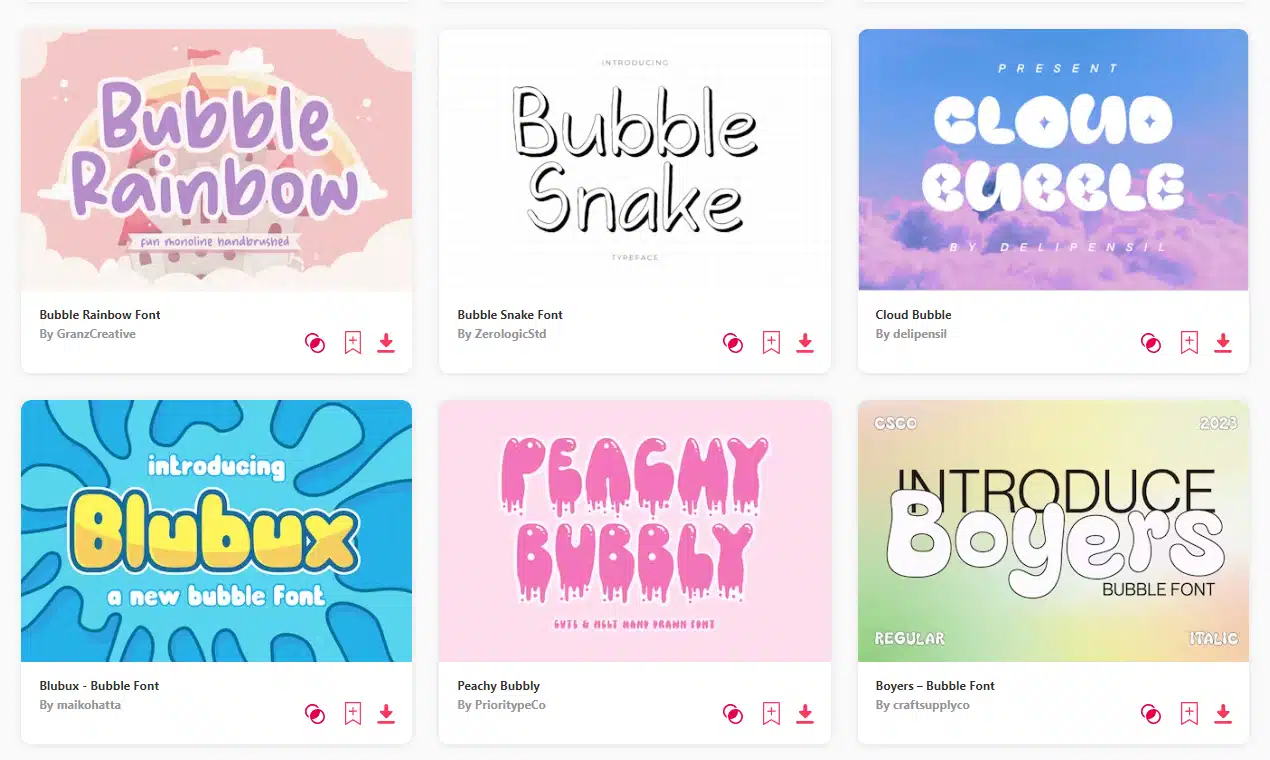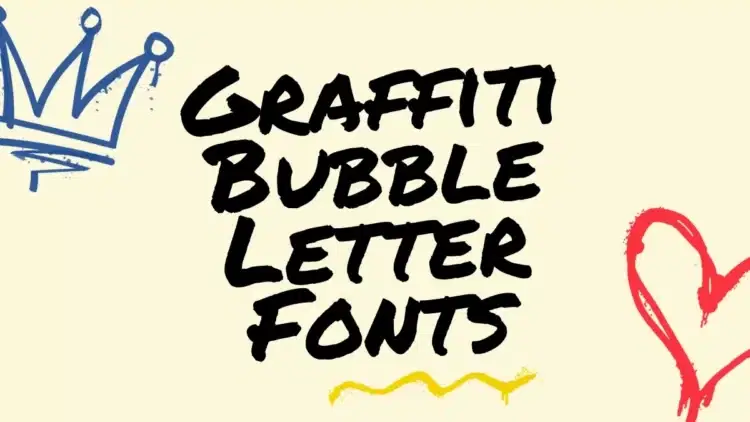
Much like signature fonts in branding, graffiti bubble letter fonts hold the power to evoke a distinct emotional response. Their bold strokes and playful curves don’t just add style; they inject personality and attitude into any design. It’s this unique aesthetic that resonates with audiences, creating an immediate connection.
Just as iconic brands like Barbie and Disney have crafted their unmistakable signatures, these graffiti bubble letter fonts pave the way for individuality and recognition. With an array of options available, each font becomes a canvas for expression, offering a blend of authenticity and professionalism.
In this compilation, we’ve curated a selection of the best graffiti bubble letter fonts. These fonts stand ready to infuse your projects with an urban edge, adding a touch of authenticity and vibrancy to your designs. Get ready to explore a world where art meets typography, bringing dynamism to every stroke and letter.
What Makes the Best Graffiti Bubble Letter Fonts Stand Out?
Graffiti bubble letter fonts epitomize urban artistry and expressiveness, offering a unique visual identity that sets them apart. These fonts boast bold, energetic strokes and playful designs, ideal for infusing your projects with a street-smart edge. Drawing inspiration from the vibrant world of street art, these fonts are a canvas for creativity, embracing a range of styles from classic graffiti to modernized bubble lettering.
Why Choose the Best Graffiti Bubble Letter Fonts?
Opting for the best graffiti bubble letter fonts brings forth a myriad of compelling reasons that set these fonts apart in the realm of typography and design.
Firstly, these fonts possess an inherent ability to demand attention. Their bold, dynamic nature ensures that any design incorporating them becomes an instant focal point. Whether it’s for digital art, branding, or print media, graffiti bubble letter fonts infuse an urban aesthetic that captivates audiences.
Beyond their visual appeal, these fonts resonate with character and personality. Choosing the right graffiti bubble letter font allows individuals to convey their unique style and identity through their designs. Whether it’s an edgy, street-inspired vibe or a more refined, contemporary look, these fonts offer a diverse range of options to suit various artistic preferences.
Versatility is another compelling aspect of the best graffiti bubble letter fonts. From classic graffiti reminiscent of urban walls to modernized bubble lettering, the spectrum of styles accommodates a wide array of design needs. Whether one seeks a rugged, authentic feel or a sleek, polished look, these fonts present an avenue for creative expression.
Moreover, the accessibility of graffiti bubble letter fonts online amplifies their appeal. With an abundance of choices readily available, selecting the ideal font becomes a seamless and enjoyable process. This accessibility ensures that designers, artists, and enthusiasts alike have access to an extensive pool of fonts to fulfill their creative visions.
1. Bubble Boom – Graffiti Font
Dive into the bold expression of graffiti with our latest addition, Bubble Boom Graffiti Font. This font encapsulates the raw energy and playful essence of street art, designed to ignite creativity across a spectrum of projects.
Immerse your designs in the authentic graffiti style of Bubble Boom. Whether it’s posters, hip-hop album covers, kid-friendly visuals, or comics, this font embodies an urban charm perfect for capturing attention and infusing a youthful spirit into your creations.
With its vibrant theme and dynamic strokes, Bubble Boom Graffiti Font transcends conventional typography, offering a canvas for expression that resonates with the dynamic urban culture. Embrace this font to add an edge and personality that speaks volumes in your design narrative.
2. KOEEYA – Display Graffiti Font
KOEEYA exudes playfulness with its kooky characters, making it a perfect fit for a variety of projects. Ideal for your next hip-hop poster, shirt design, or album cover, this font adds an energetic vibe that stands out.